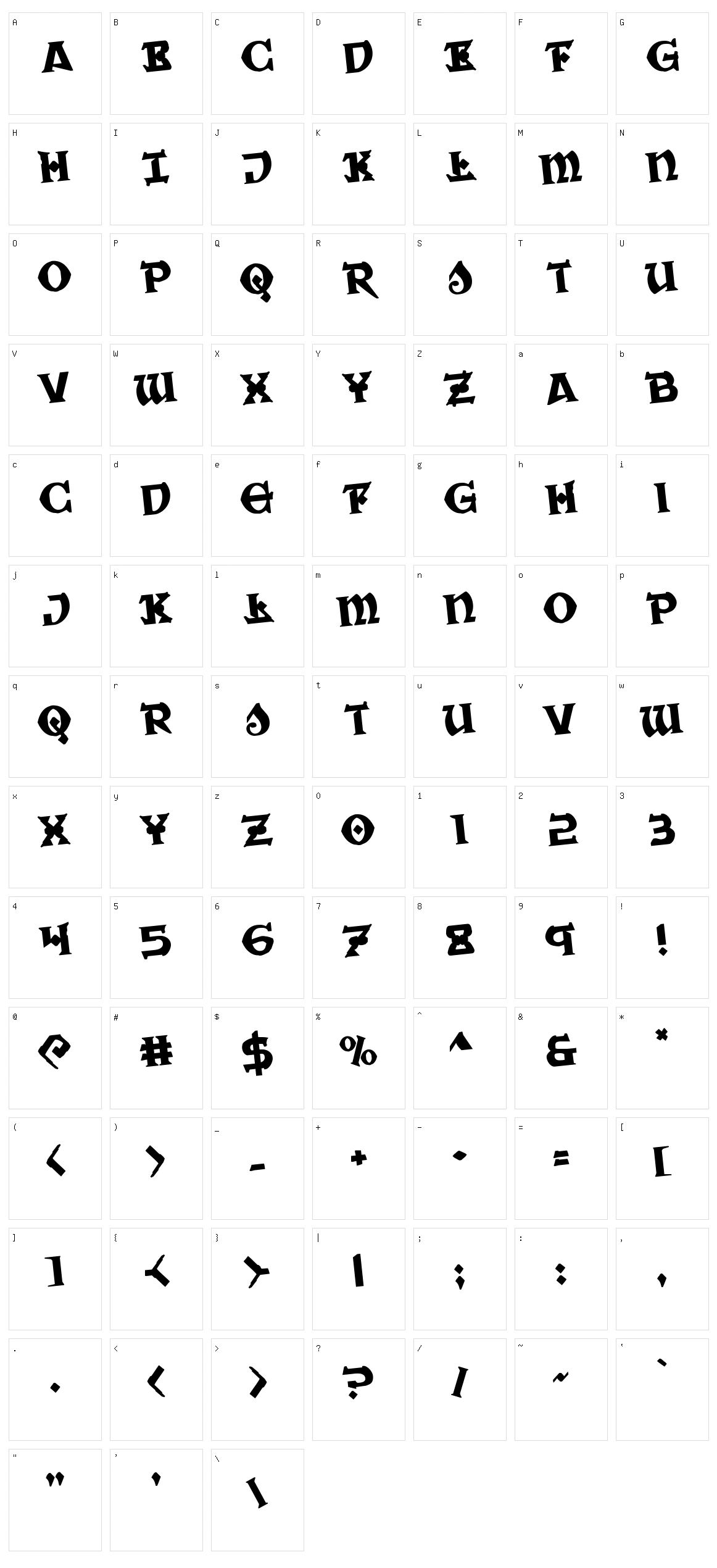
War Priest
Description: The free font War Priest is carefully designed by Iconian Fonts, showcasing a thoughtful balance of creativity and usability and belongs to the Gothic font family. When you download the ZIP file, it contains only 360.13 KB of font files, making it lightweight and quick to download. Please review the license details below to understand permitted usage and distribution rights. If license information is not available, we recommend using this font for personal projects only or contacting the author directly for commercial usage permissions.
This font comes with the following 11 versions: Regular, Italic, Condensed, Condensed Italic, Expanded, Expanded Italic, 3D, 3D Italic, Rotate, Rotalic and Leftalic.